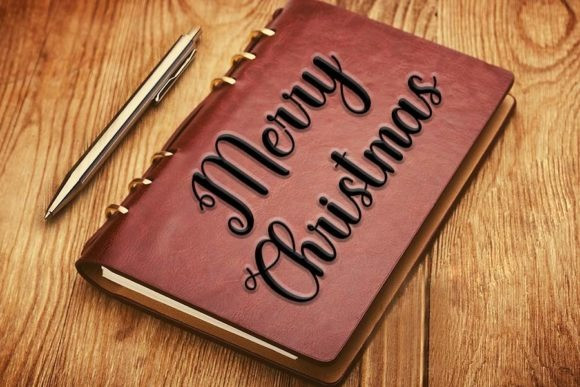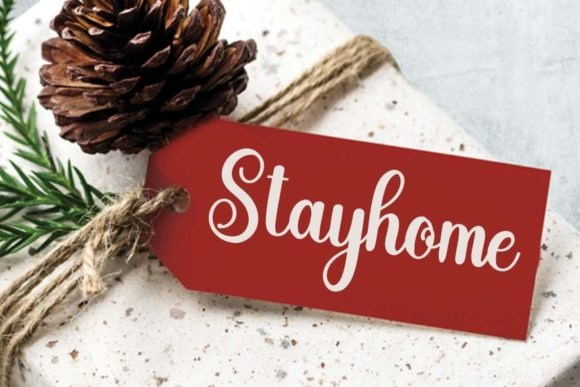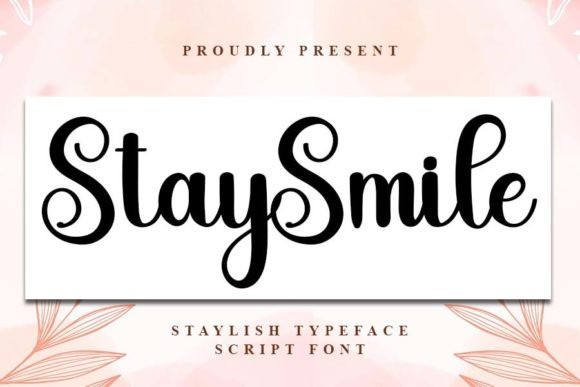
Stay Smile Font
Stay Smile Script Font is a delicate, elegant and flowing handwritten font. It has beautiful and well balanced characters and as a result, it matches a wide pool of designs. Add it to your most creative ideas and notice how it makes them come alive!